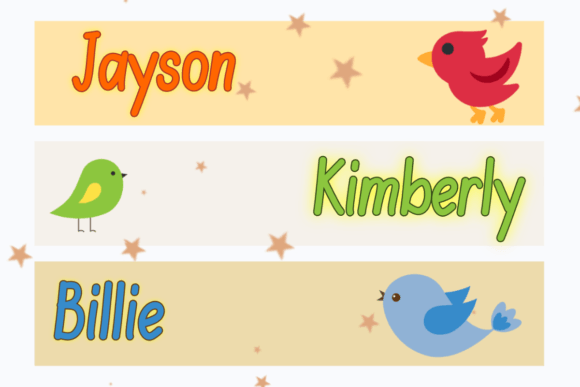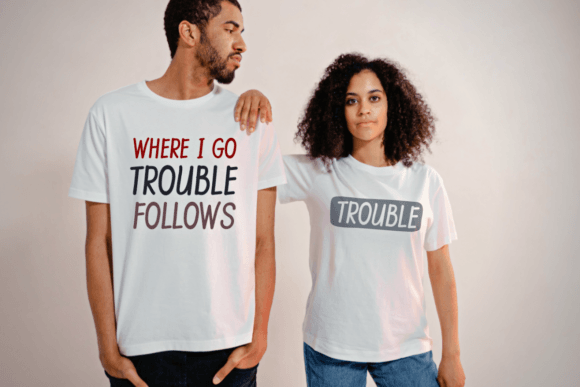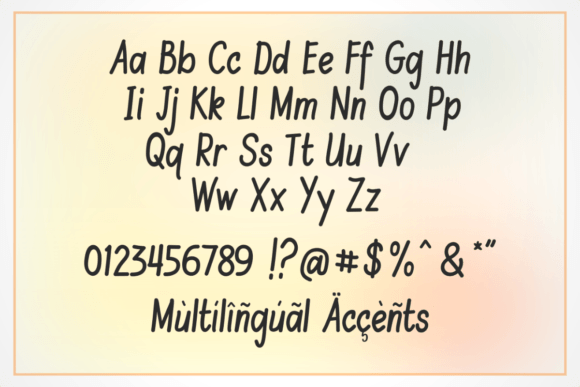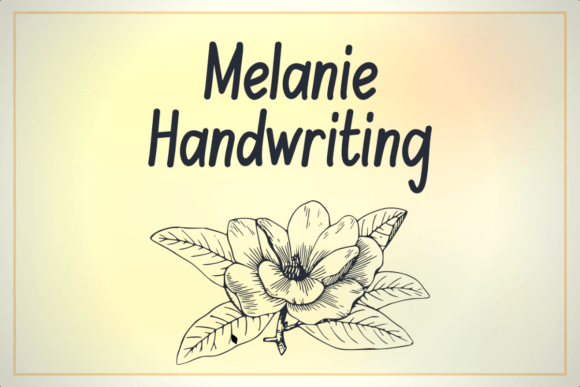
Introduction to Melanie Handwriting Font
Melanie Handwriting is simple and cute handwritten font.
Its informal style and casual vibes will make this font a go-to choice for any creation that requires a relaxed touch .